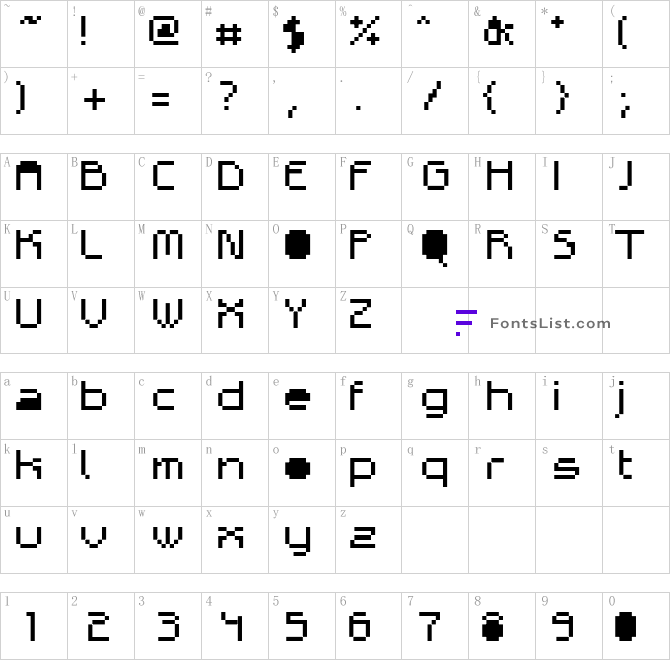
- Font Name:Adelphi Broken
Adelphi-Broken.ttf is a very beautiful artistic font, Adelphi-Broken.ttf is widely used in the design and printing of various books and pictures,Adelphi-Broken.ttf has a strong visual impact,Adelphi-Broken.ttf is a commonly used font in newspapers, magazines and books, and is used in posters, e-commerce Poster design, store design, logo design, font design and other fields.Adelphi-Broken.